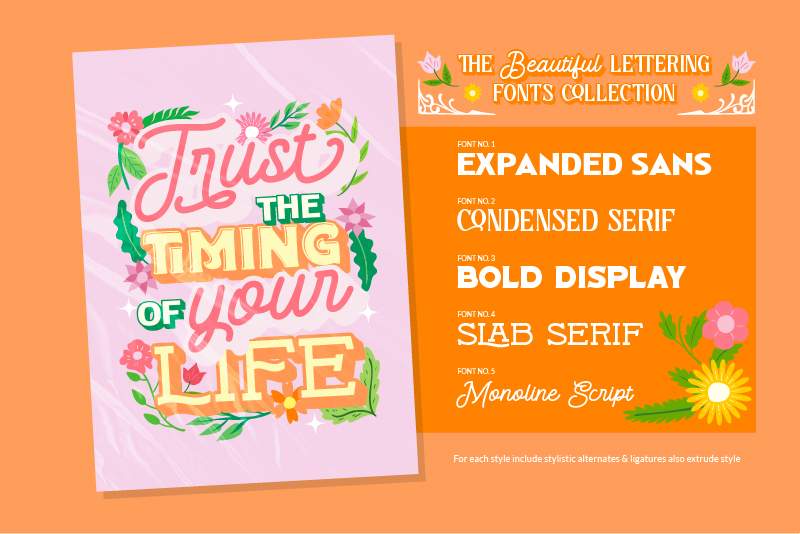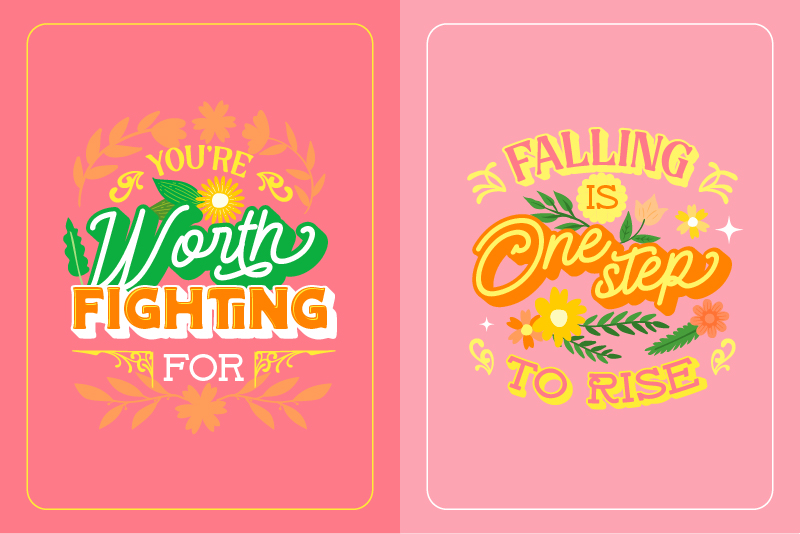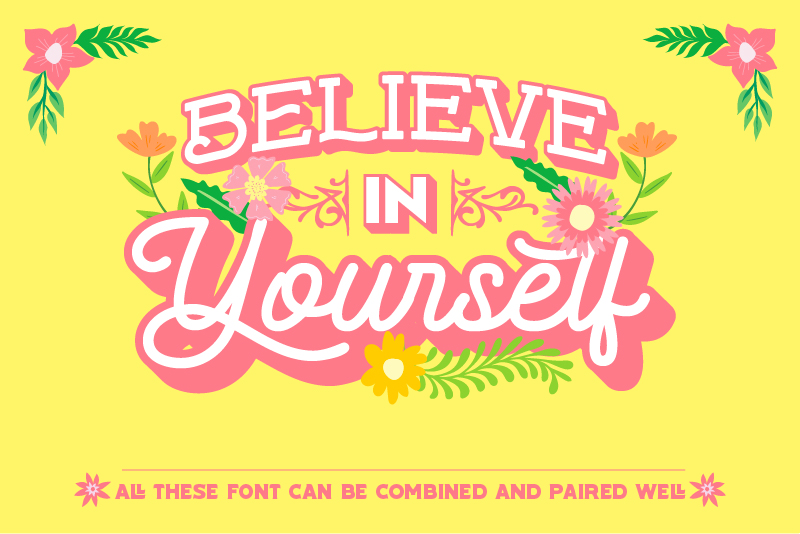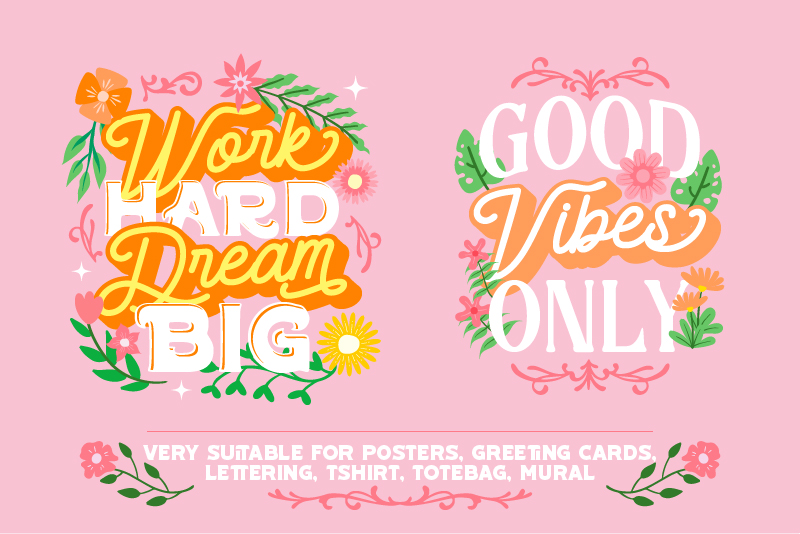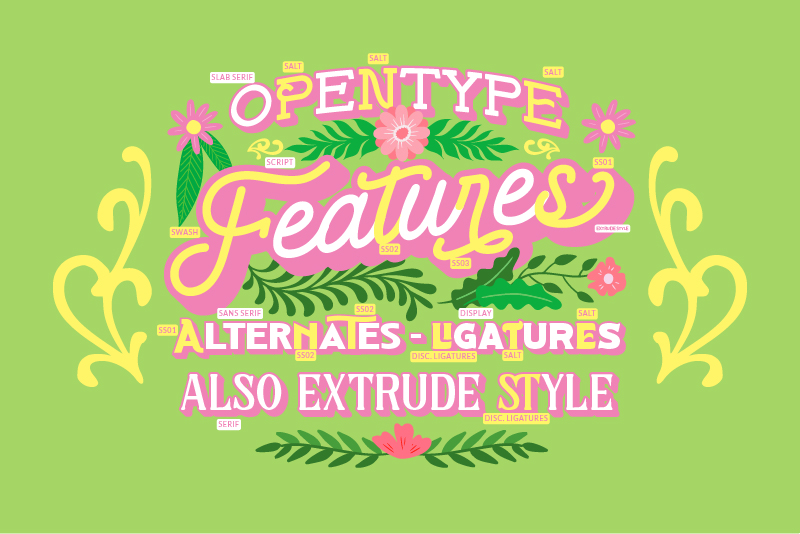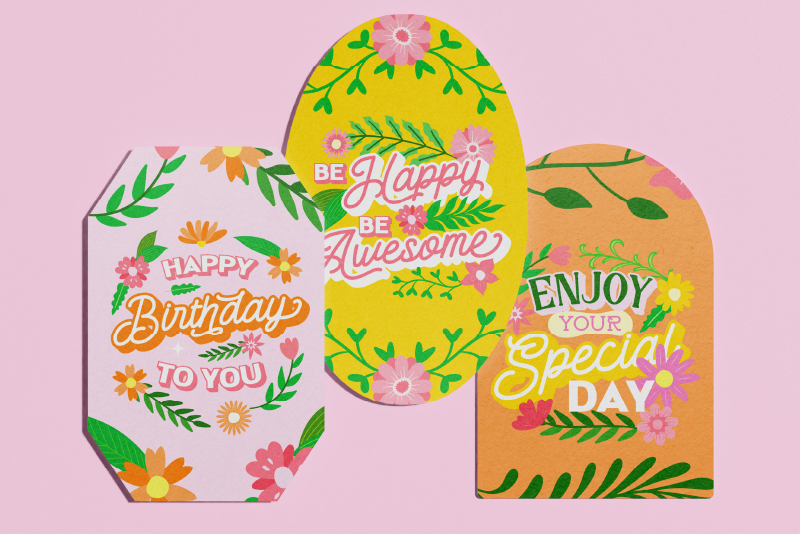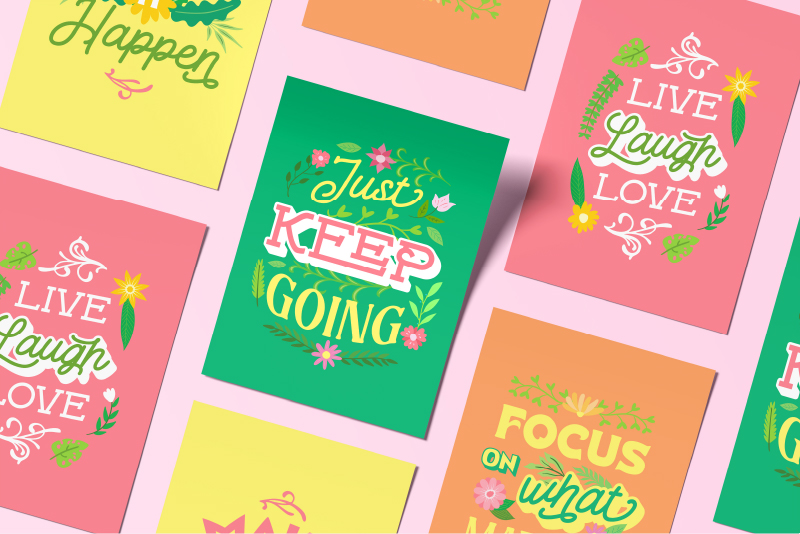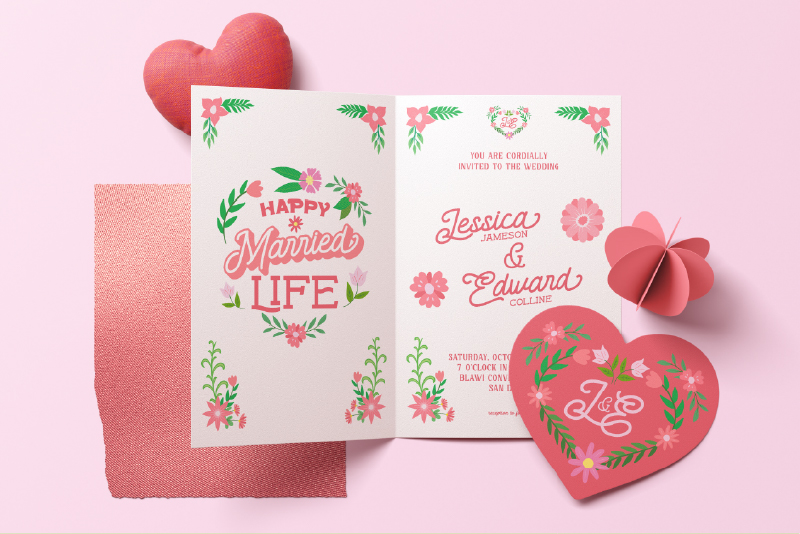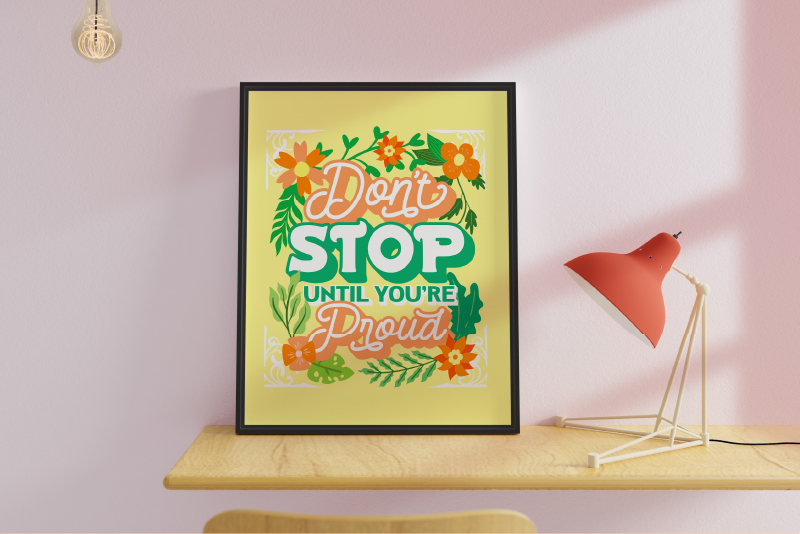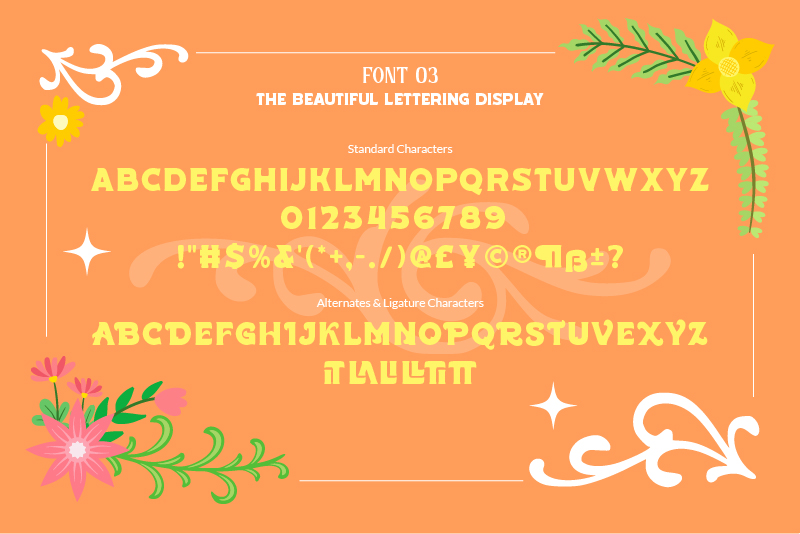
The Beautiful Lettering Fonts Collection
Introducing The Beautiful Lettering Fonts Collection – a versatile package of five unique font styles designed to cover a broad range of creative needs. Each font in the collection brings its own distinct flair, from graceful monoline scripts to bold displays until expanded sans serifs. Perfectly curated to complement each other ensuring you can elevate any design with just one comprehensive package. Unlock endless possibilities and bring your creative visions to life with The Beautiful Lettering Collection.
- Expanded Sans Serif
- Condensed Serif
- Bold Display
- Sans Serif
- Monoline Script
The Beautiful Lettering Fonts Collection fits in headlines, logos, posters, invitation, branding materials, packaging, print media, editorial layouts, and many more designs. Find out more ways to use this font by taking a look at the font preview.